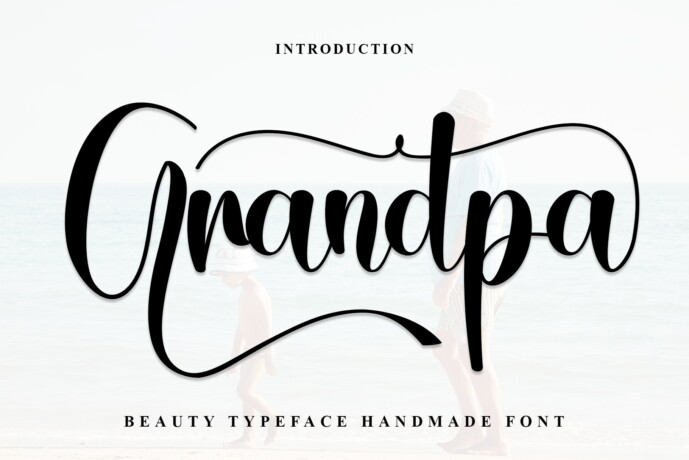
Grandpa Font
Designer: Creatype Designer
Grandpa is a lovely and timeless handwritten font. It is the best choice for creating eye catching logos, branding and quotes. Every letter has a unique and beautiful touch, which will make your design come alive!